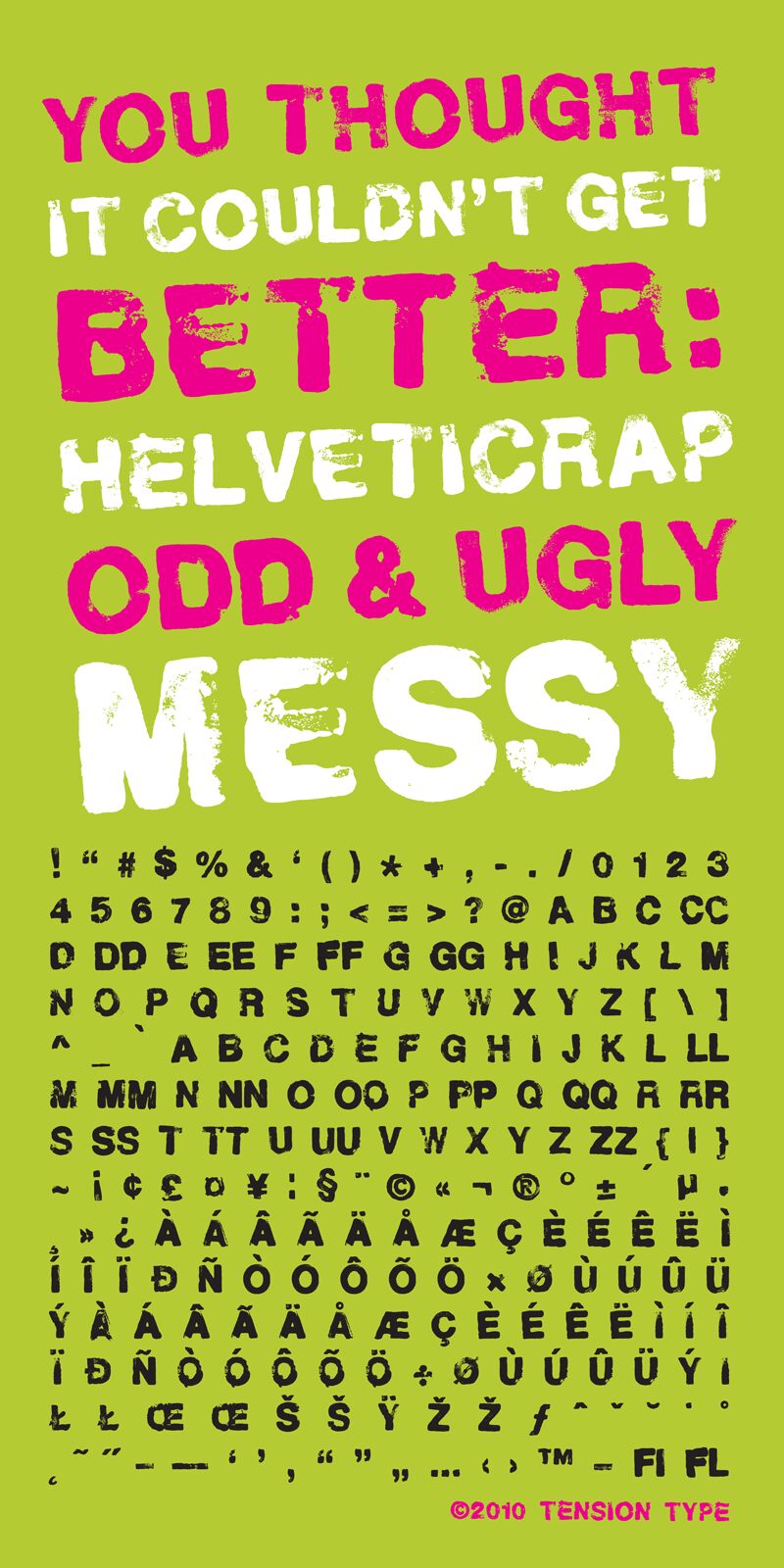
Helveticrap by Michael Tension of Tension Type is a free eroded display font with blunt, uneven letterforms and a heavily battered surface. Its silhouette stays broad and forceful.
Poster lettering is its strongest role, since the ragged gaps and rough edges resemble ink transferred from a worn screen. That same damaged print quality suits punk record sleeves, skate merchandise, and underground event graphics. In those settings, the type becomes part of the scuffed image rather than serving as neutral copy.